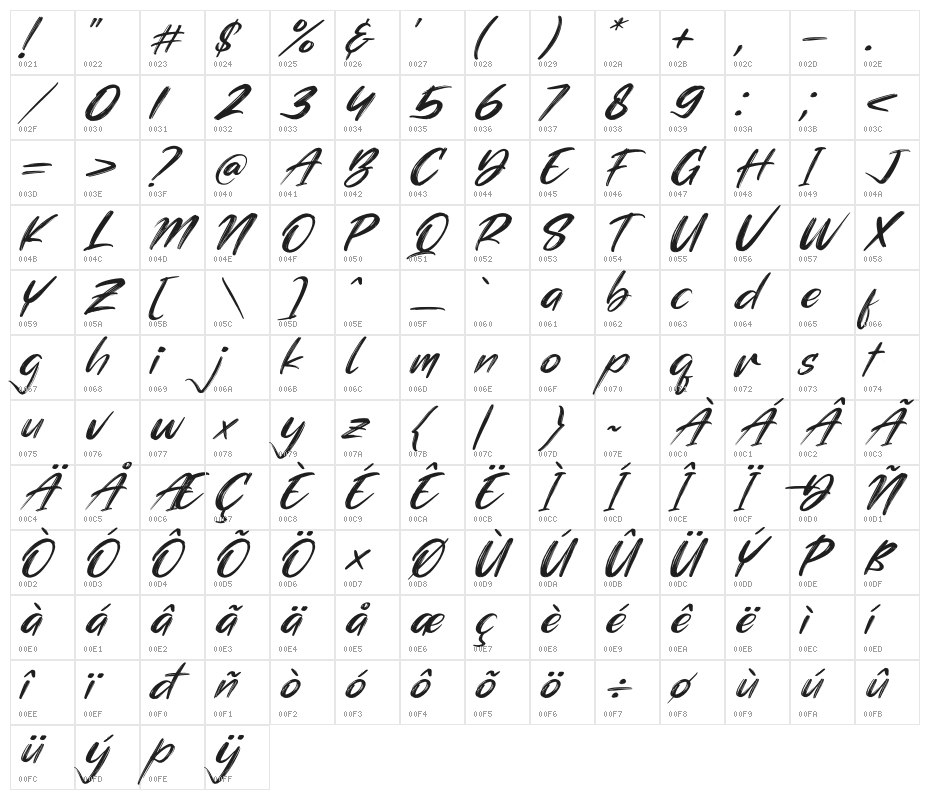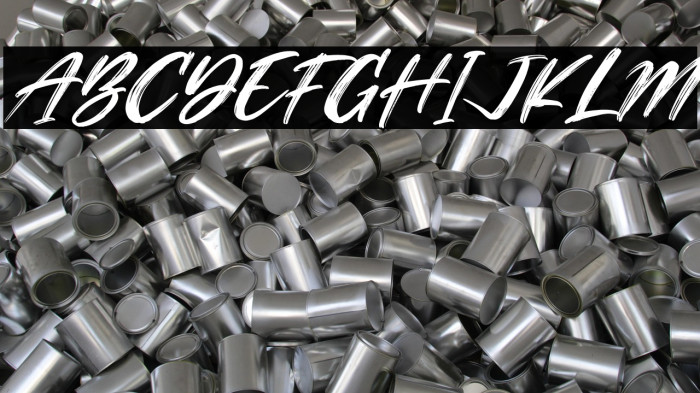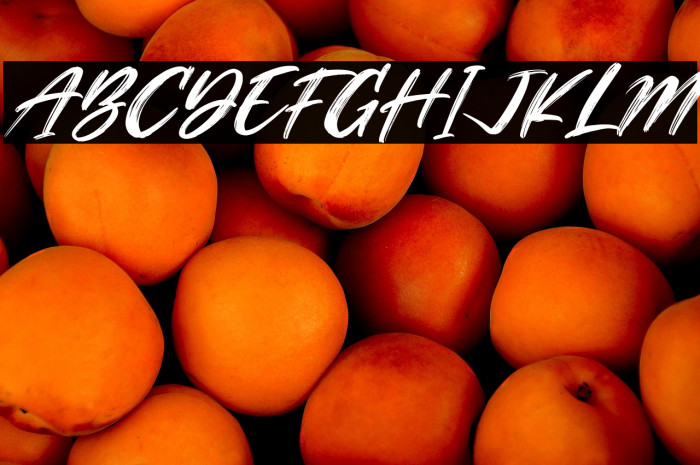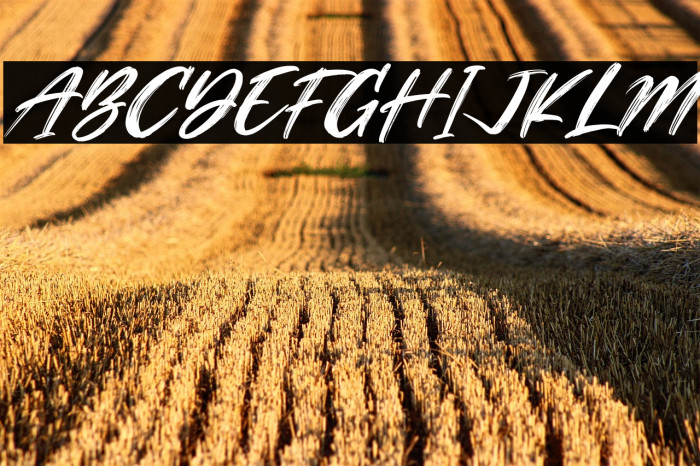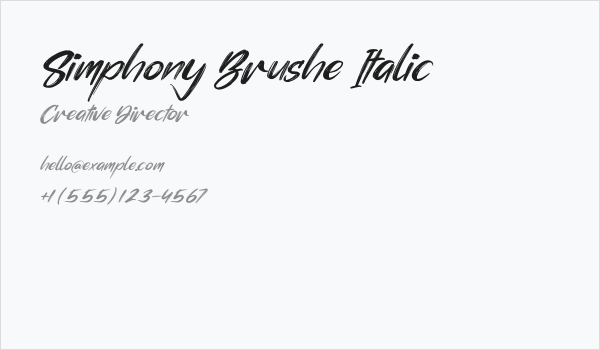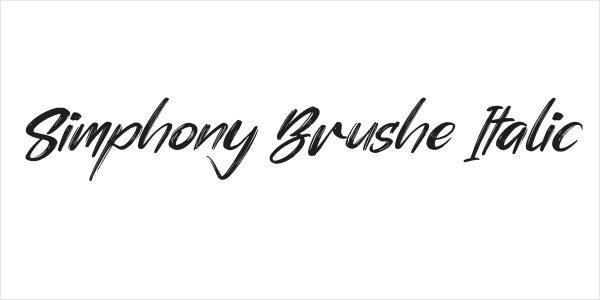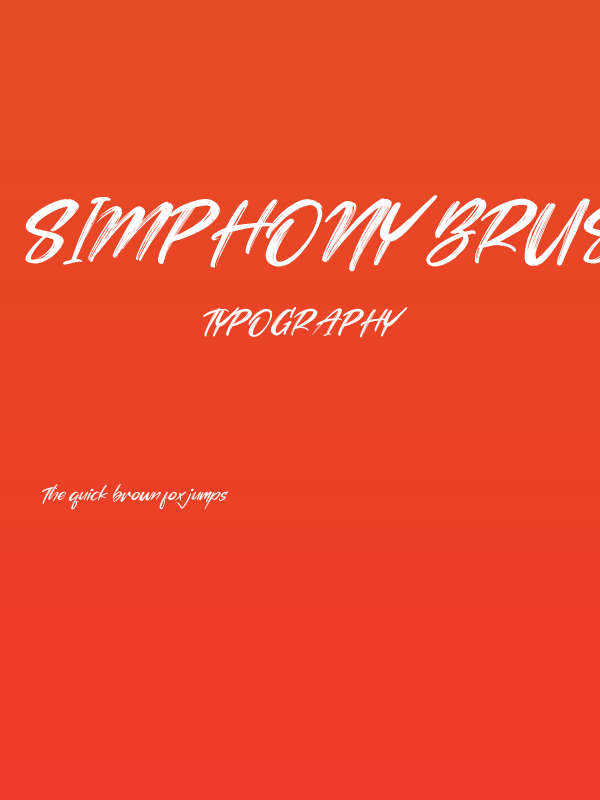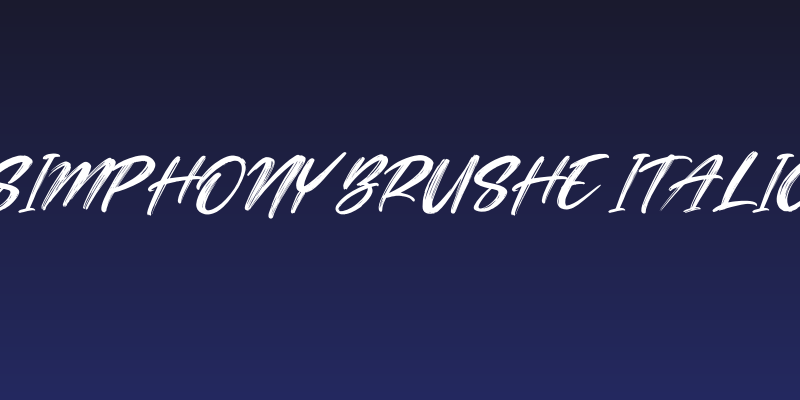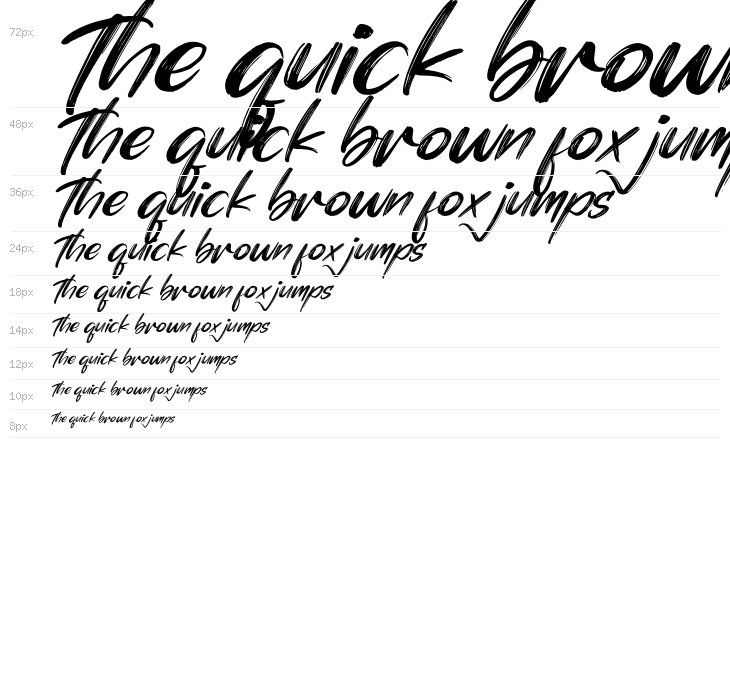
Simphony Brushe Italic Font
Simphony Brushe Italic Description
This font exudes a dynamic and expressive style, characterized by its brush-like strokes that convey a sense of movement and fluidity. The letters are slanted, adding to the italicized appearance, and each character is crafted with varying stroke widths, giving it a hand-painted look. The uppercase and lowercase letters maintain a consistent style, with the uppercase being slightly more pronounced. Numbers and special characters are equally expressive, fitting seamlessly with the overall aesthetic. The font's boldness and artistic flair make it ideal for projects that require a personal touch.